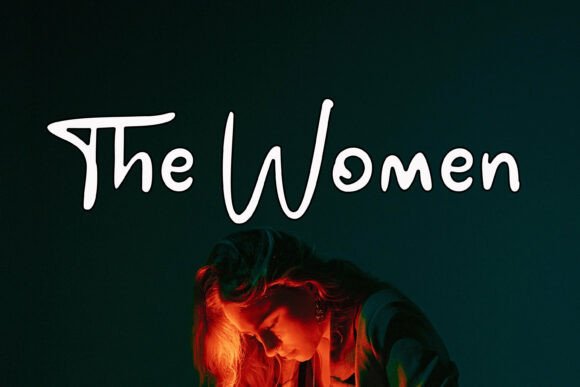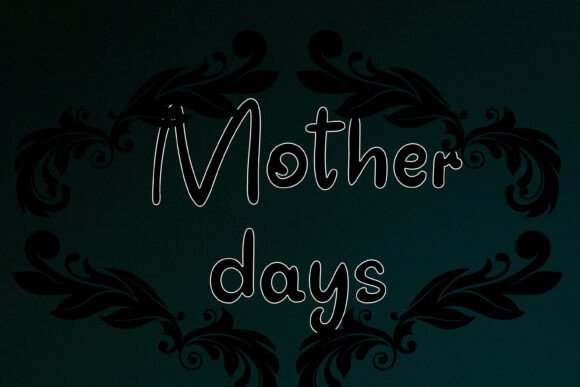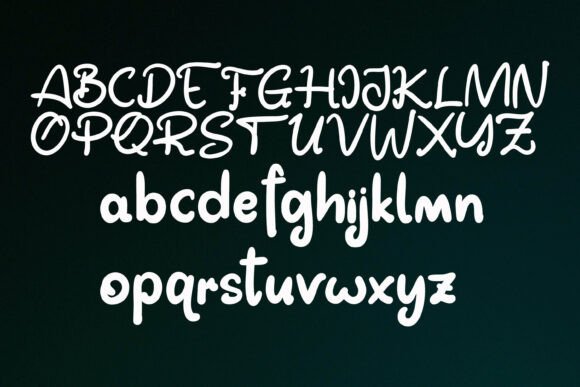
Introduction to Resthia Font
Resthia is a beautiful and eye-catching font designed with a soft, unique touch.
Its distinctive strokes give it a special character, making it meaningful and versatile for future use With various characters, it’s perfect for design projects, crafts, and other creative works.
Resthia Font offers exceptional quality and versatility, making it a valuable addition to your design toolkit. Whether you’re creating for personal projects or commercial use, Resthia Font delivers professional results.